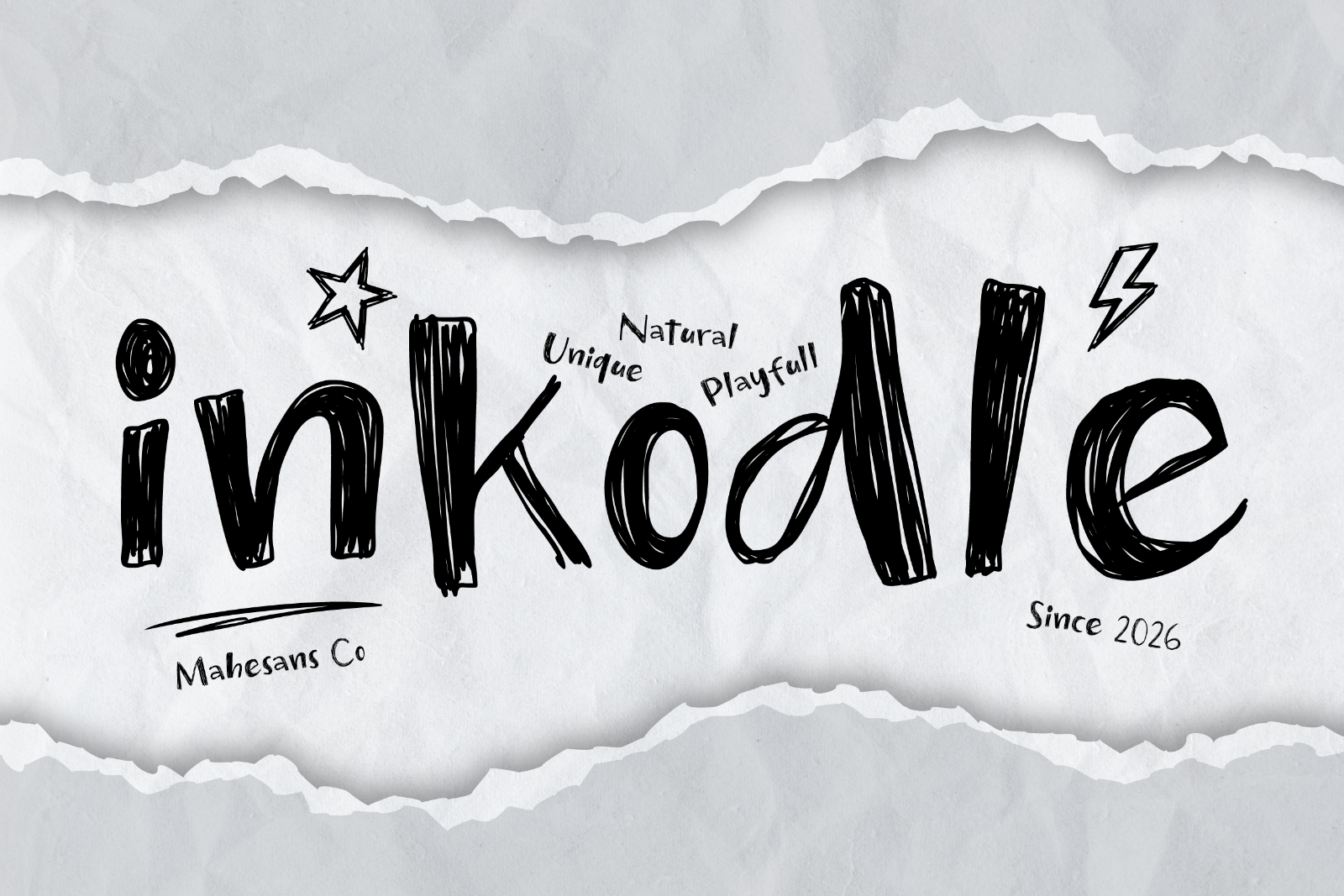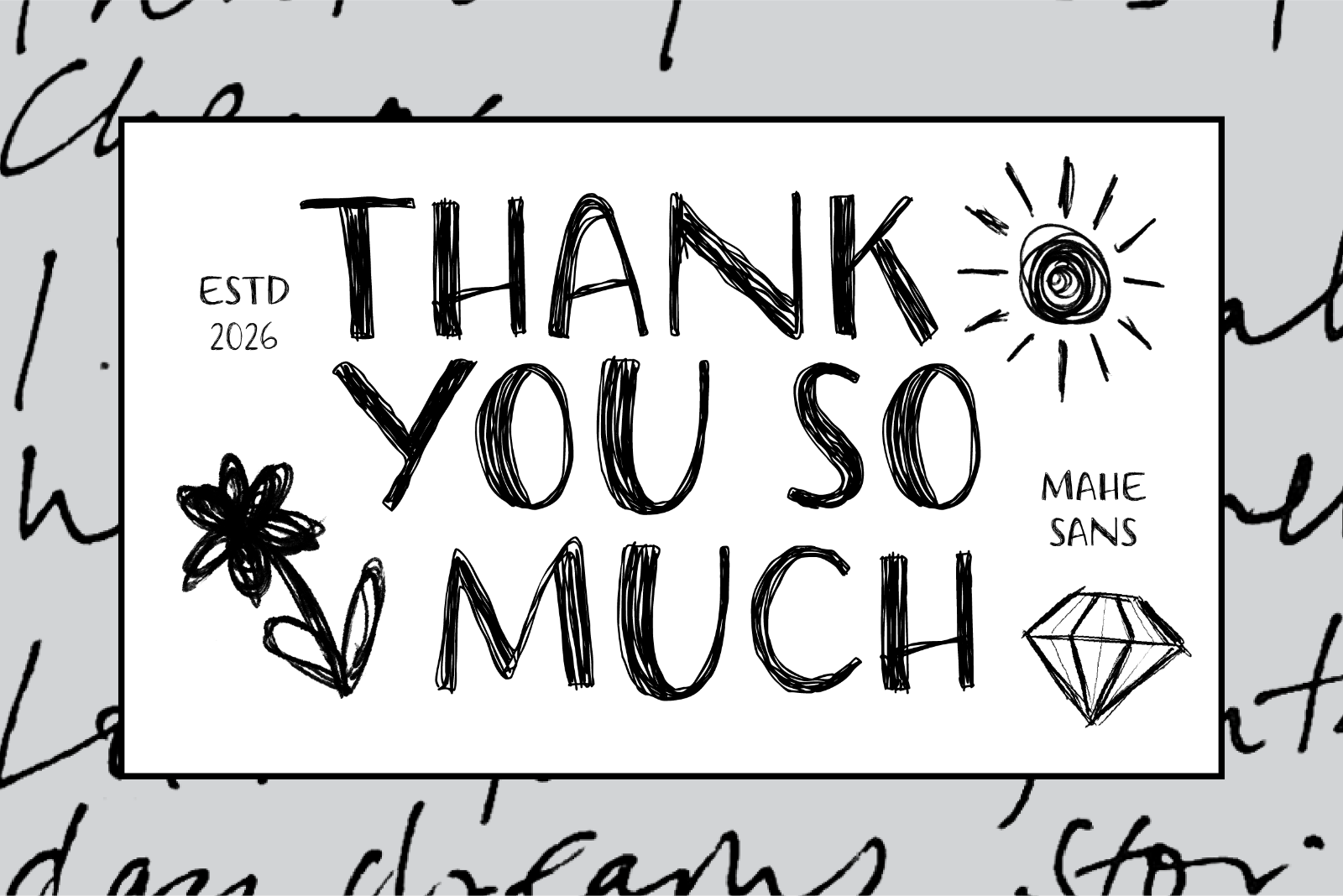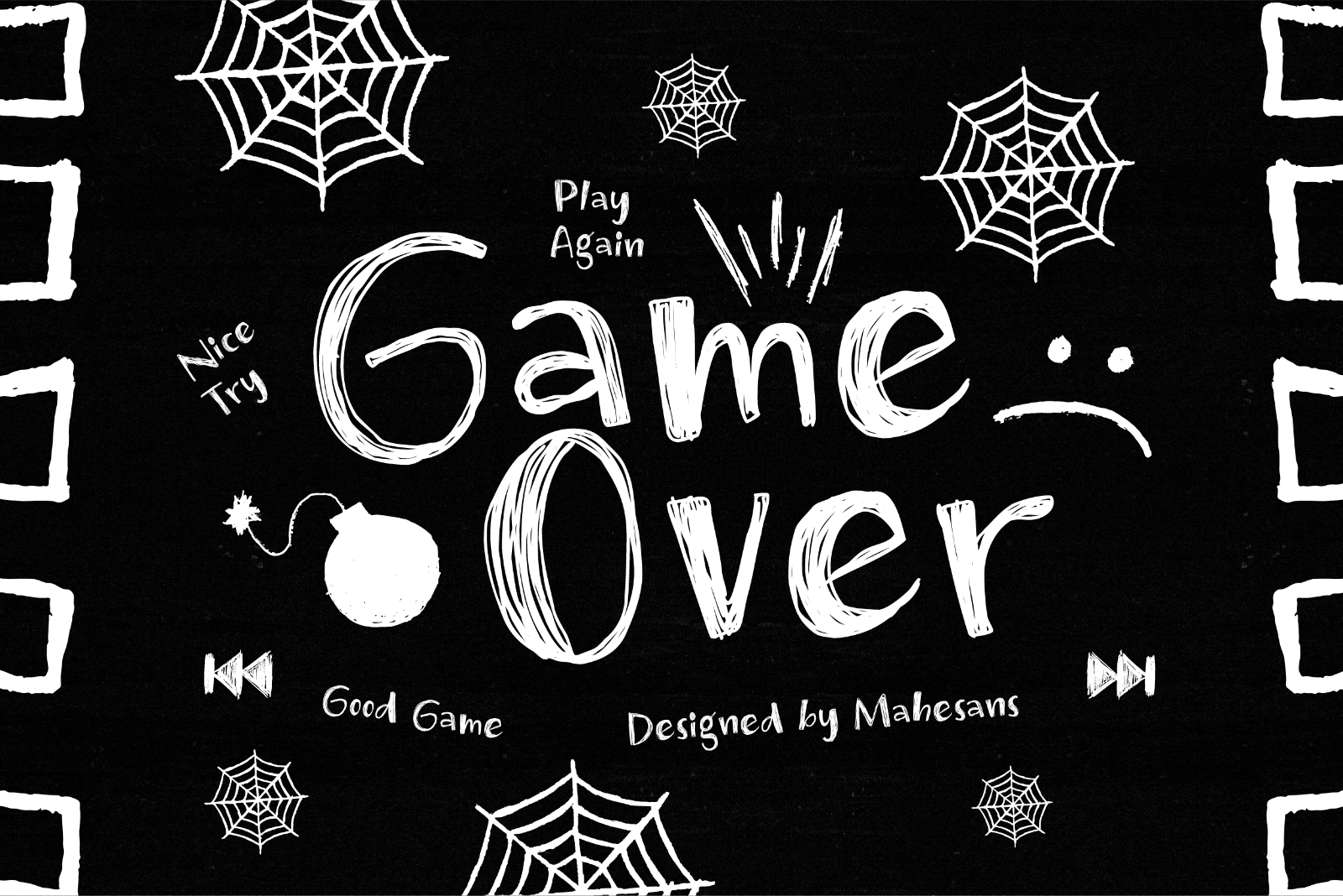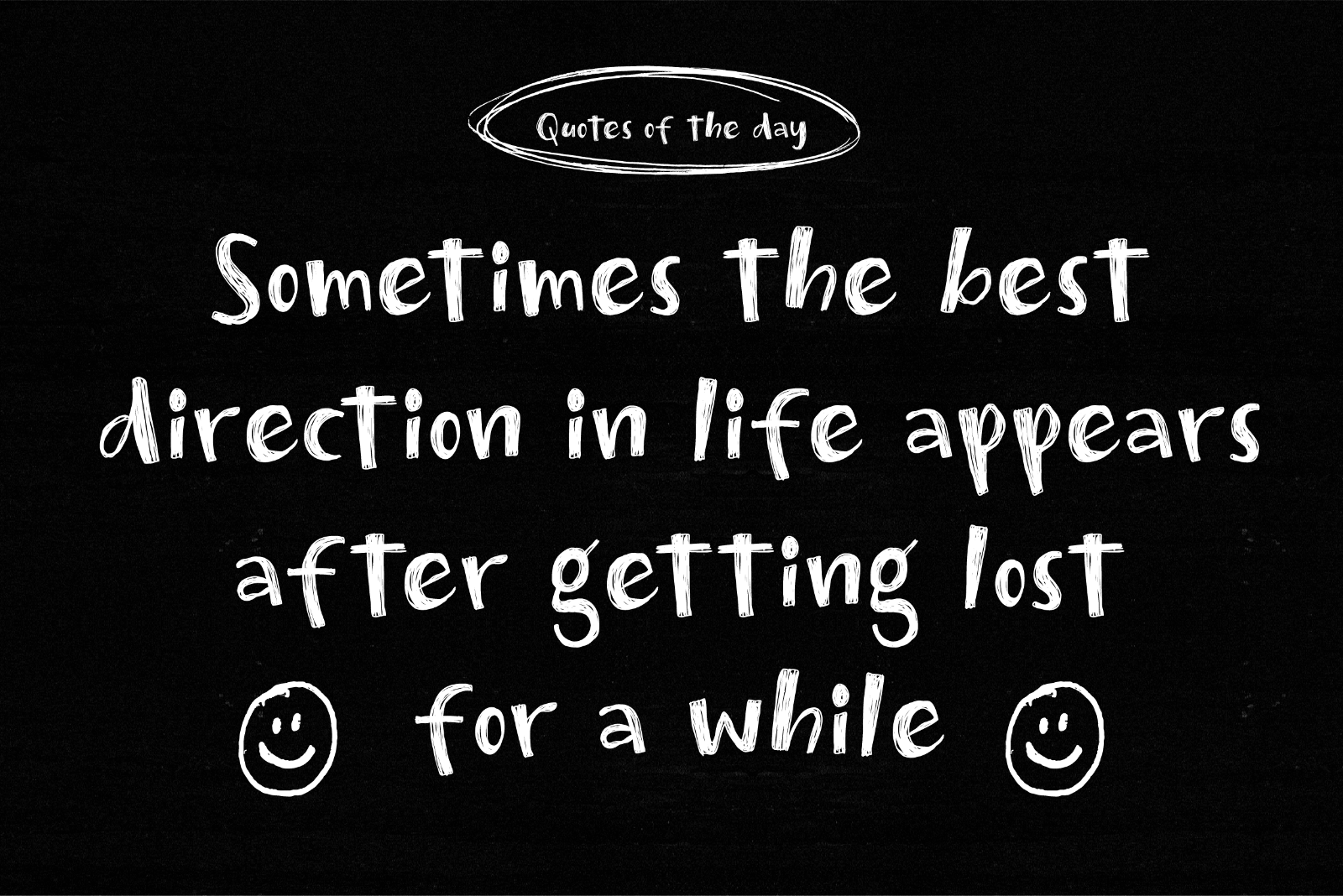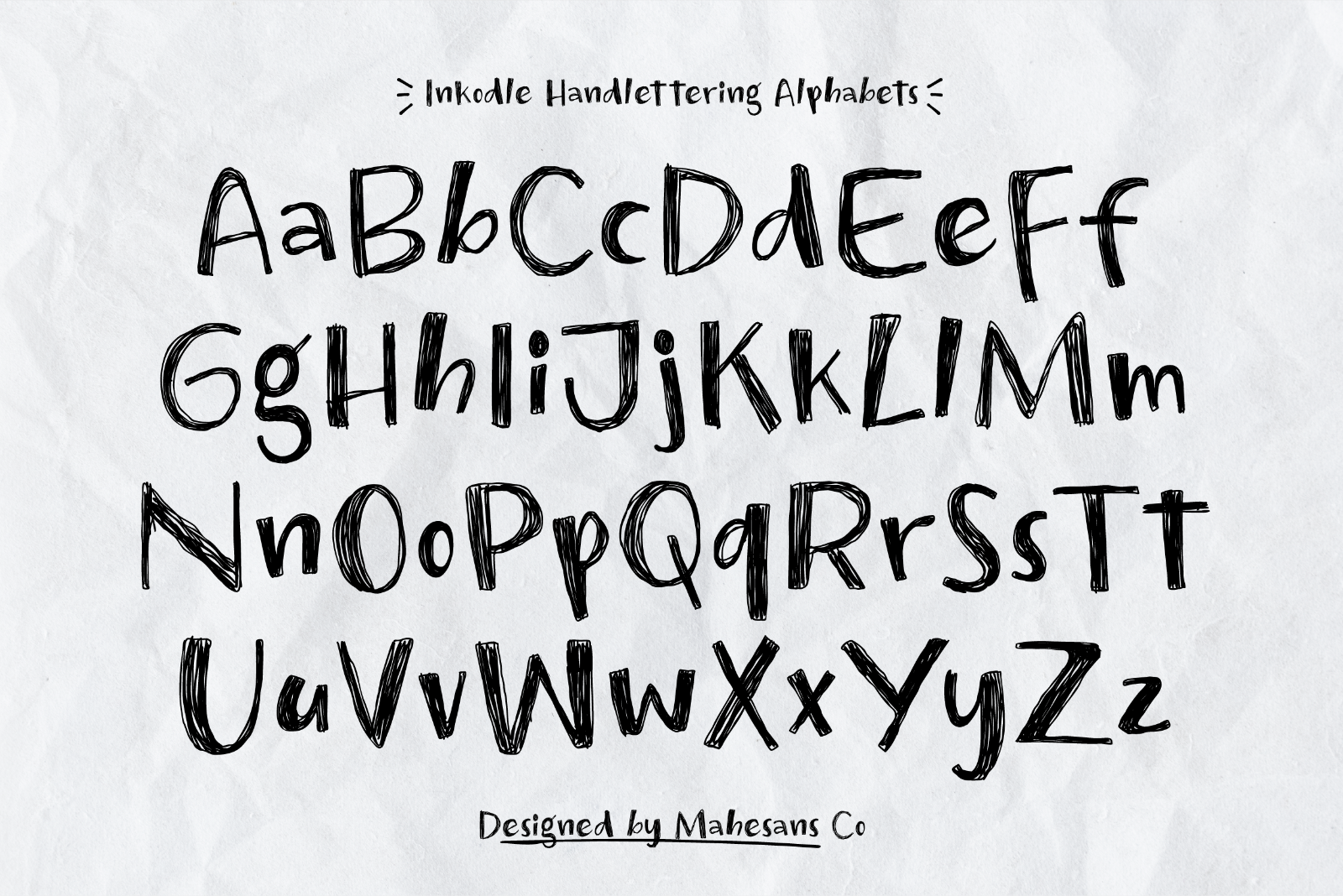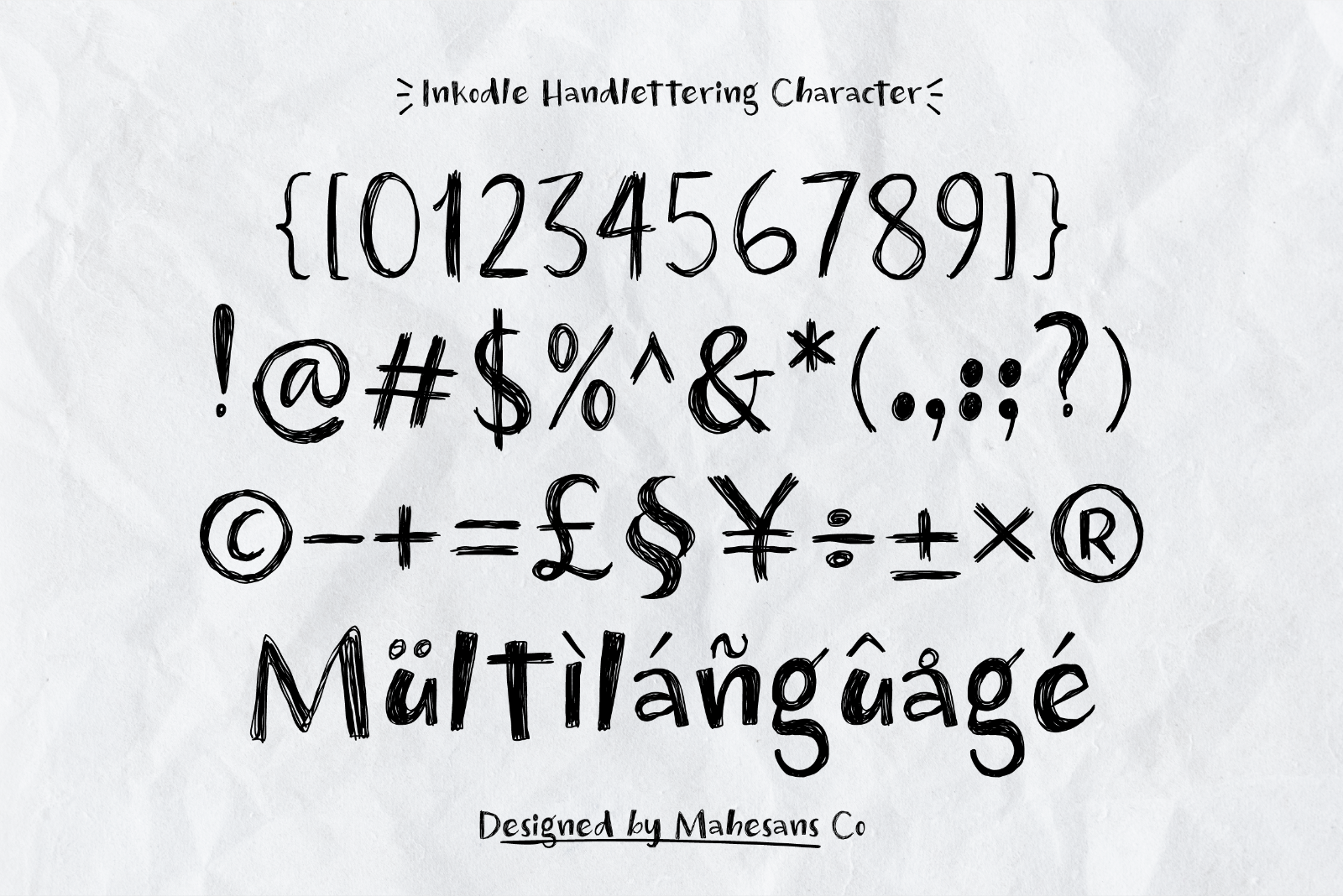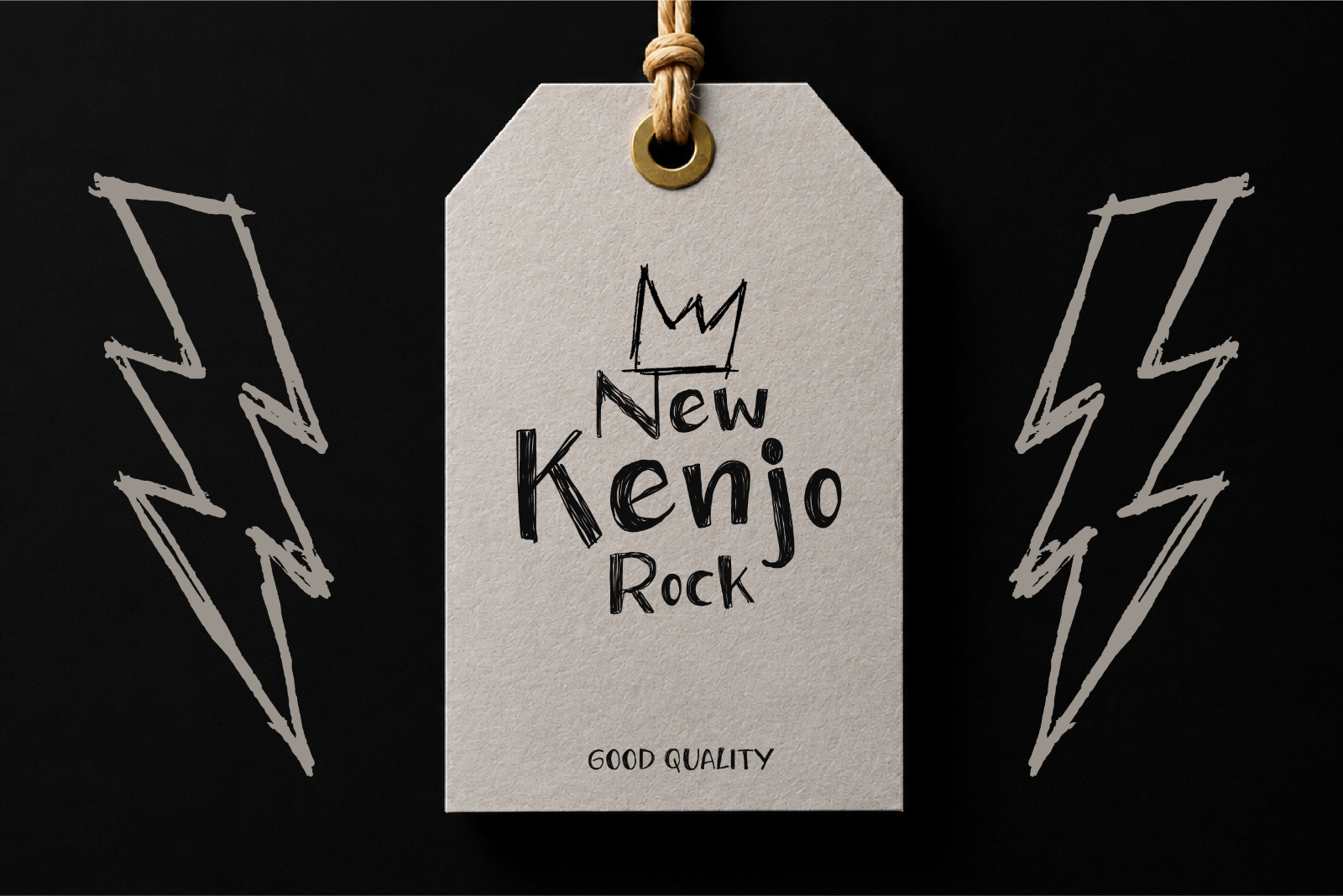
Introducing Inkodle, a playful handwritten font inspired by spontaneous doodles, sketchbook notes, and imperfect marker strokes. Designed with a naturally rough and authentic appearance, Inkodle brings a charming handmade personality to any creative project.
Each letter is crafted to capture the feeling of real pen-on-paper sketches, making your designs feel more personal, expressive, and memorable. Whether you're creating children's products, posters, branding, social media graphics, packaging, or casual merchandise, Inkodle adds an energetic and artistic touch that stands out effortlessly.
Its quirky letterforms, uneven textures, and organic flow make it perfect for projects that need a fun, friendly, and creative vibe without looking overly polished.
Perfect For:
• Kids & children's branding
• Book covers and storybooks
• Posters and flyers
• Craft and DIY projects
• Social media content
• T-shirt designs
• Stickers and merchandise
• School projects
• Packaging design
• Creative logos and branding
• Alternates
• Multilanguage
By Mahesans Co